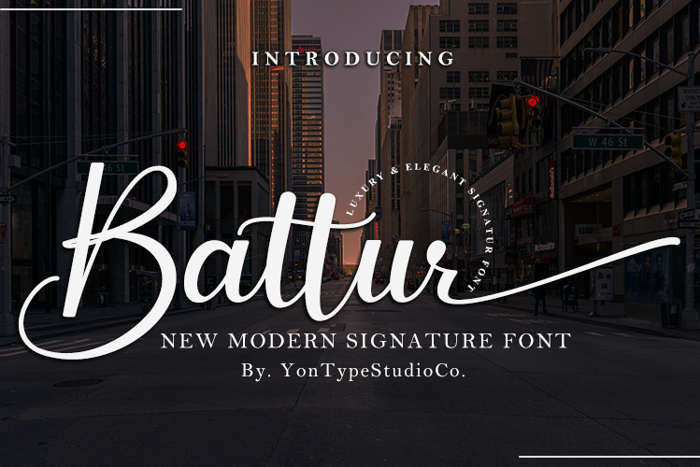
Battur Font
Battur – Modern Signature Font is the perfect handwritten font for logos, posters, watermarks, and more! This is best used for logos, wedding stationery, social media, and quotes. Test in the box above to see how your next project will be!
Battur Signature handwritten font comes with alternative characters (OpenType features). Sharing end ending swashes With multilingual support, this font is also suitable to be combined with san-serif fonts to get amazing results for your design project.